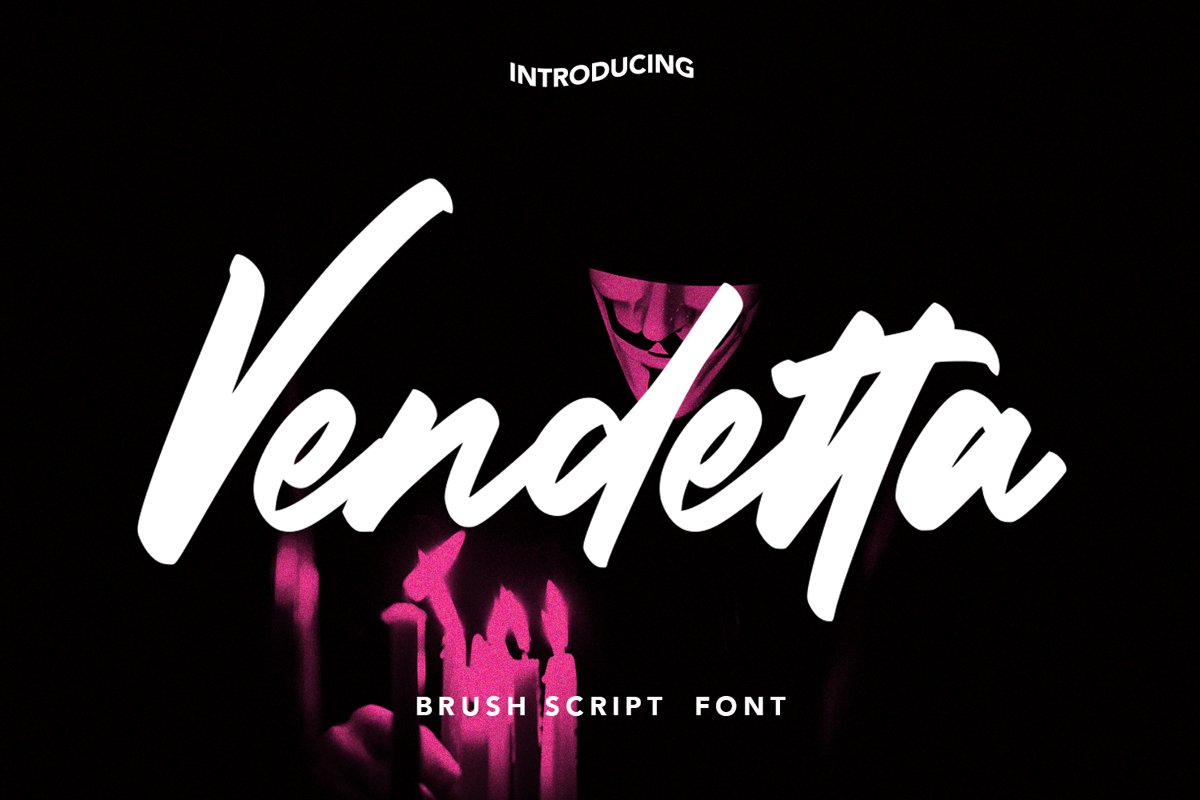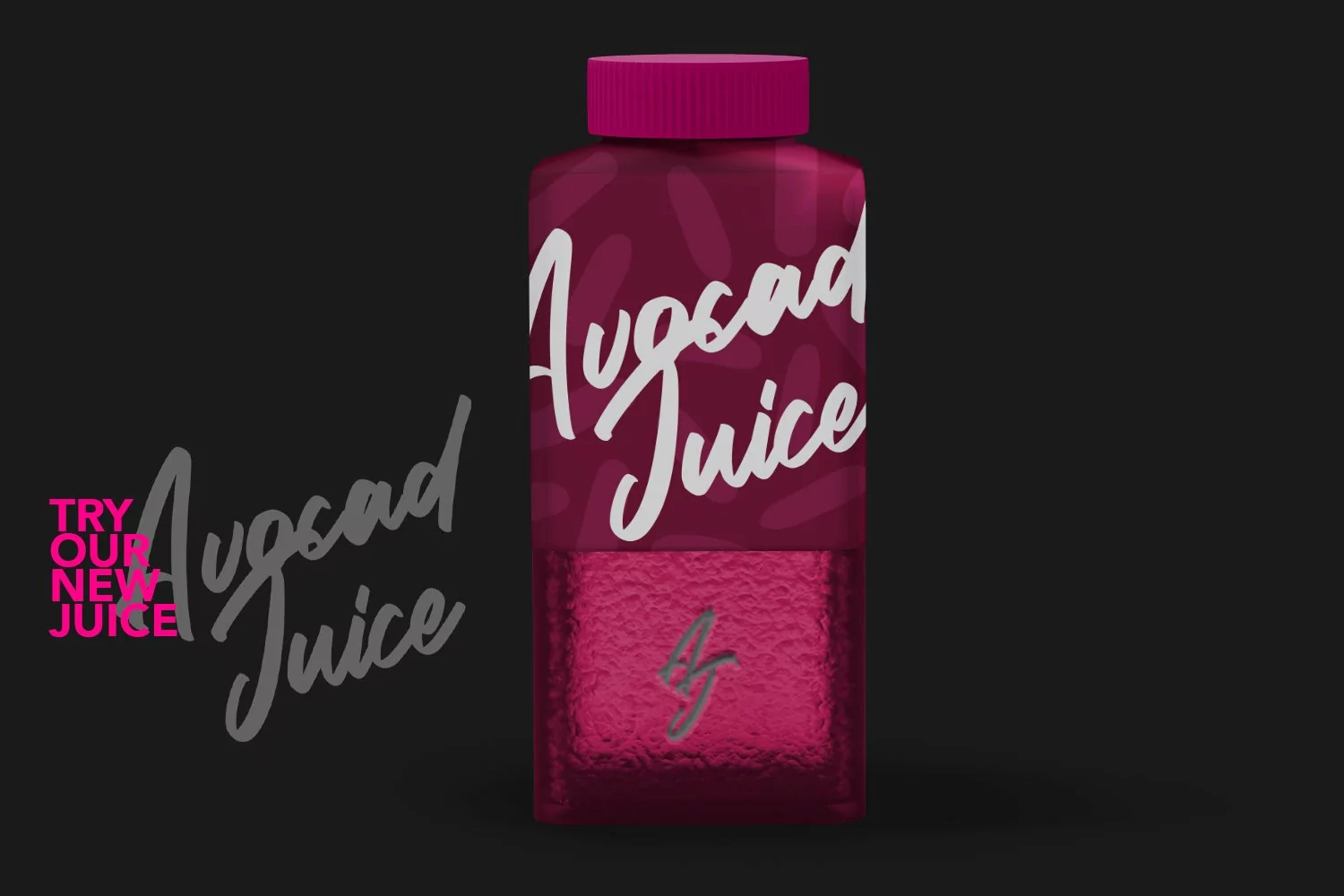
Vendetta - Brush Script Font that contain lowercase, uppercase, symbol, and also support multi language. There’s a lot ligatures in this font. This Font also comes with ligatures, alternates and many more. this font suitable for fashion, branding, catalog and other design what you want.
Vendetta